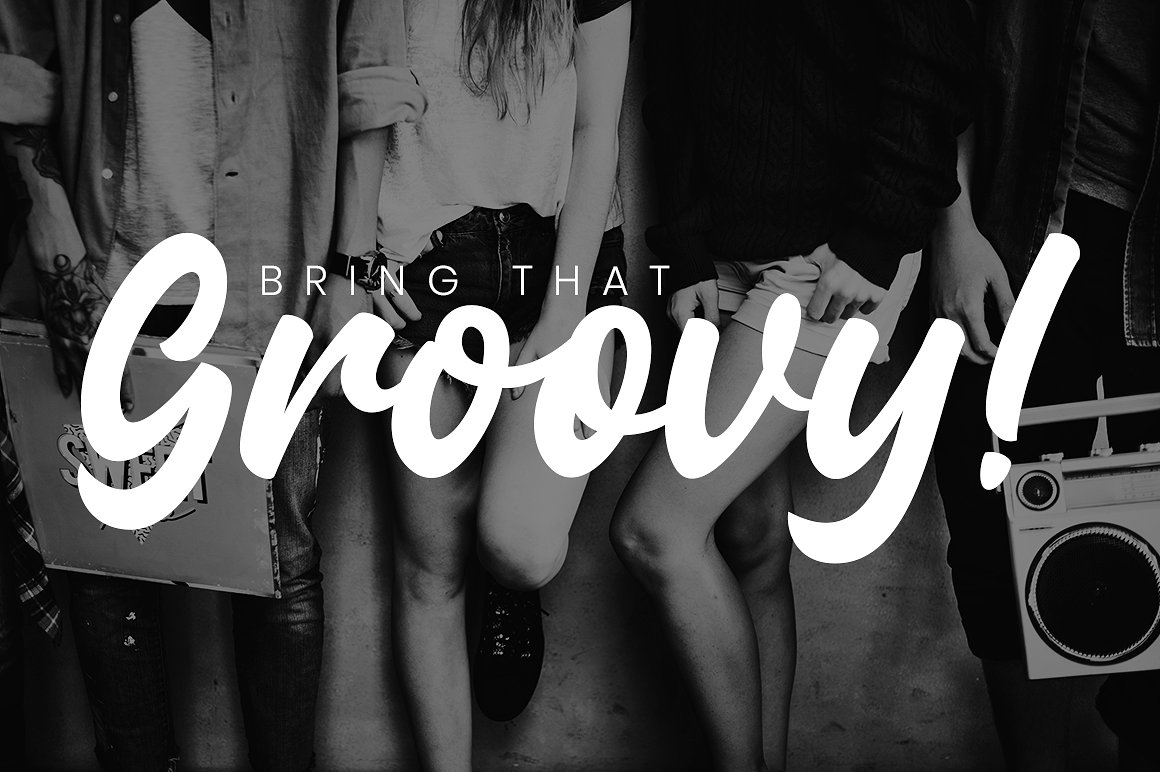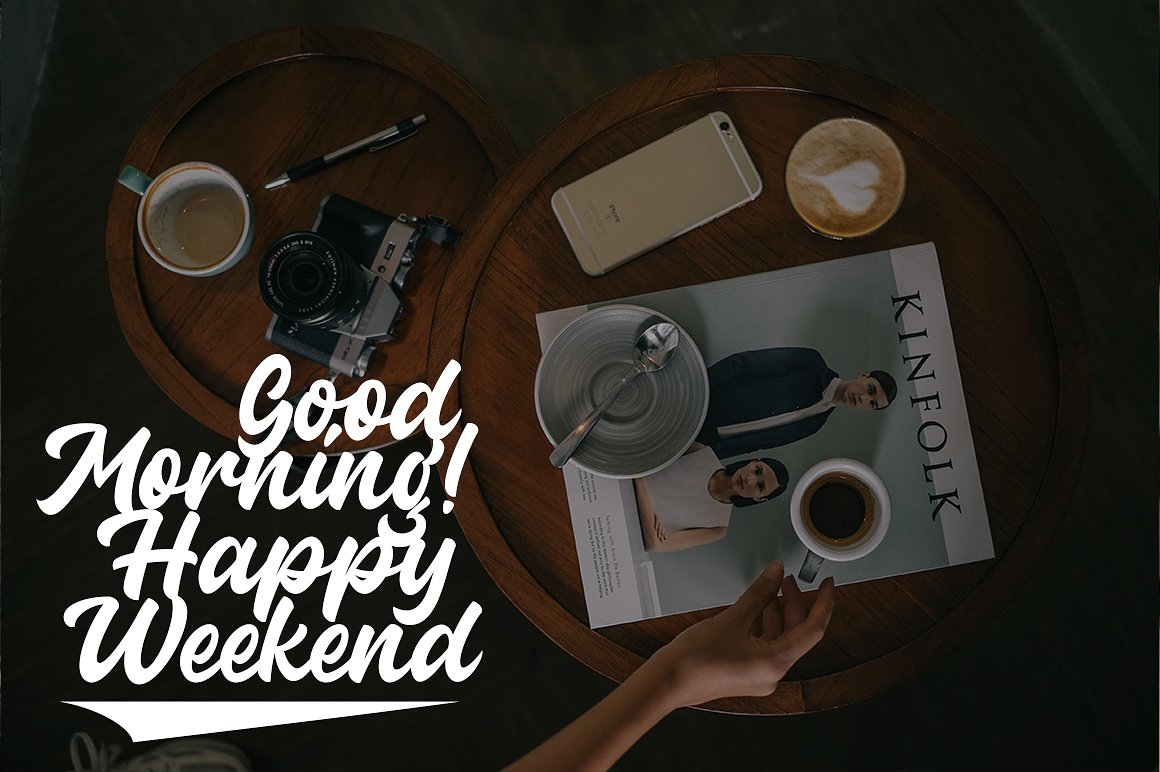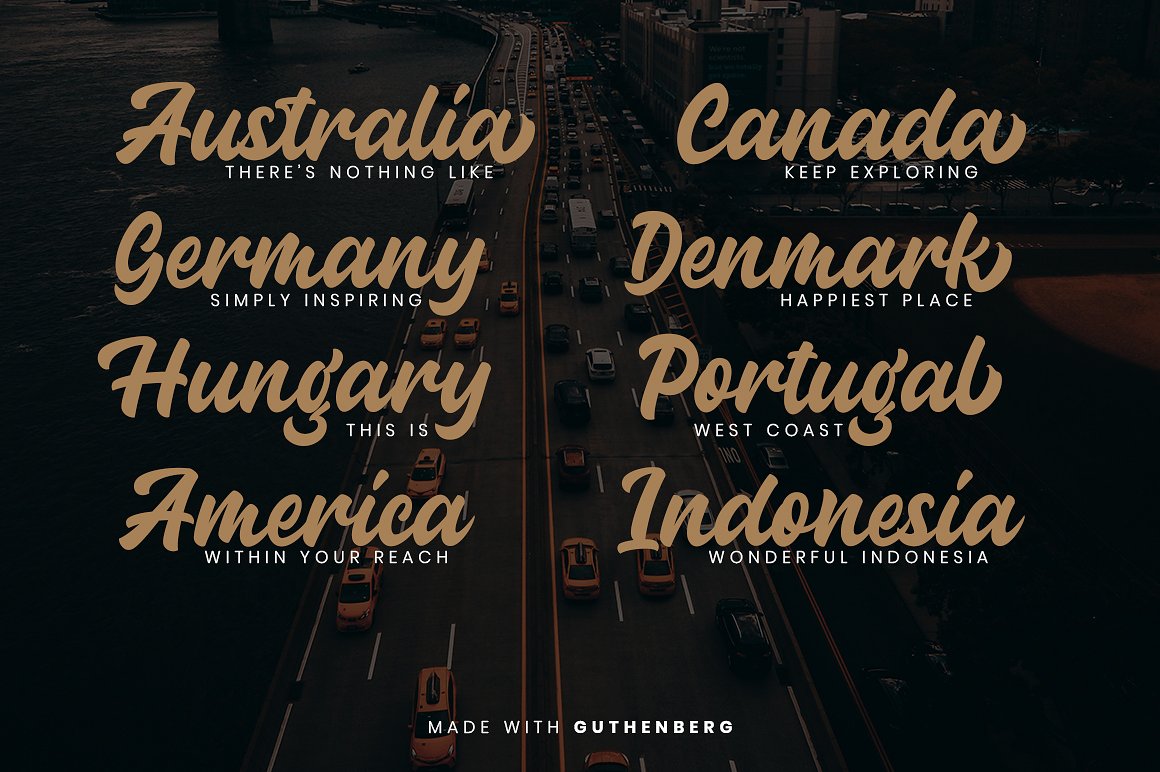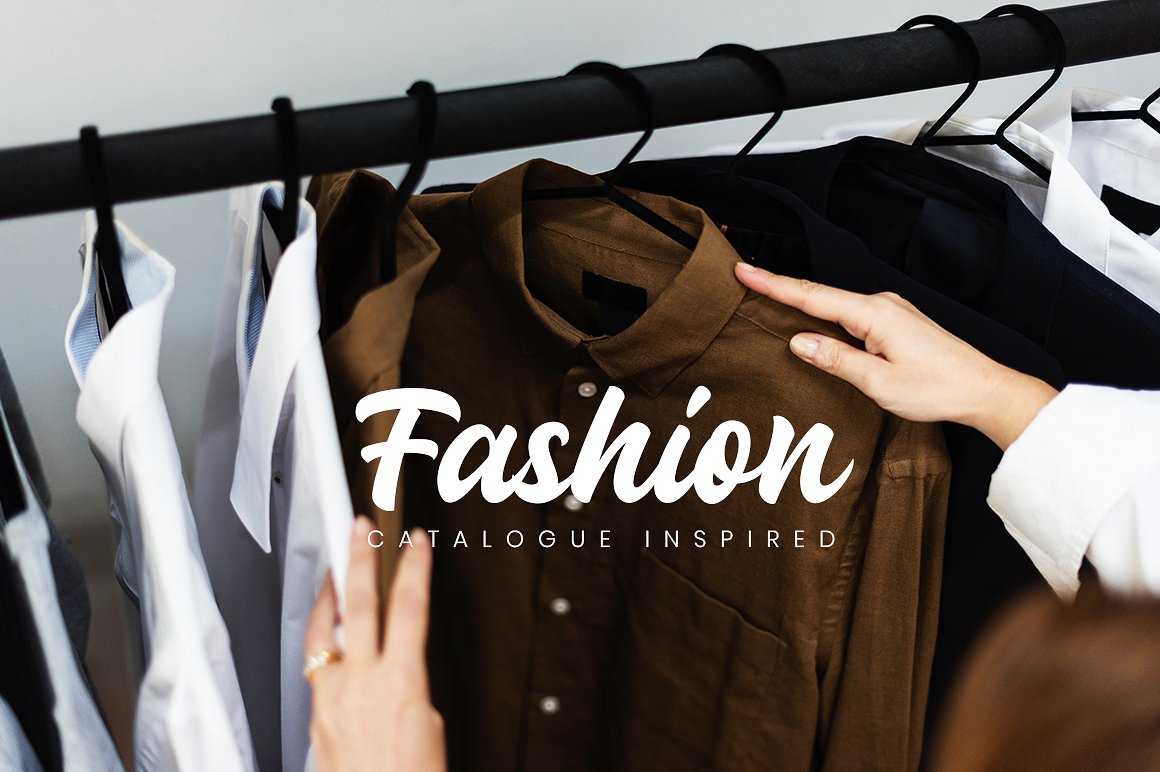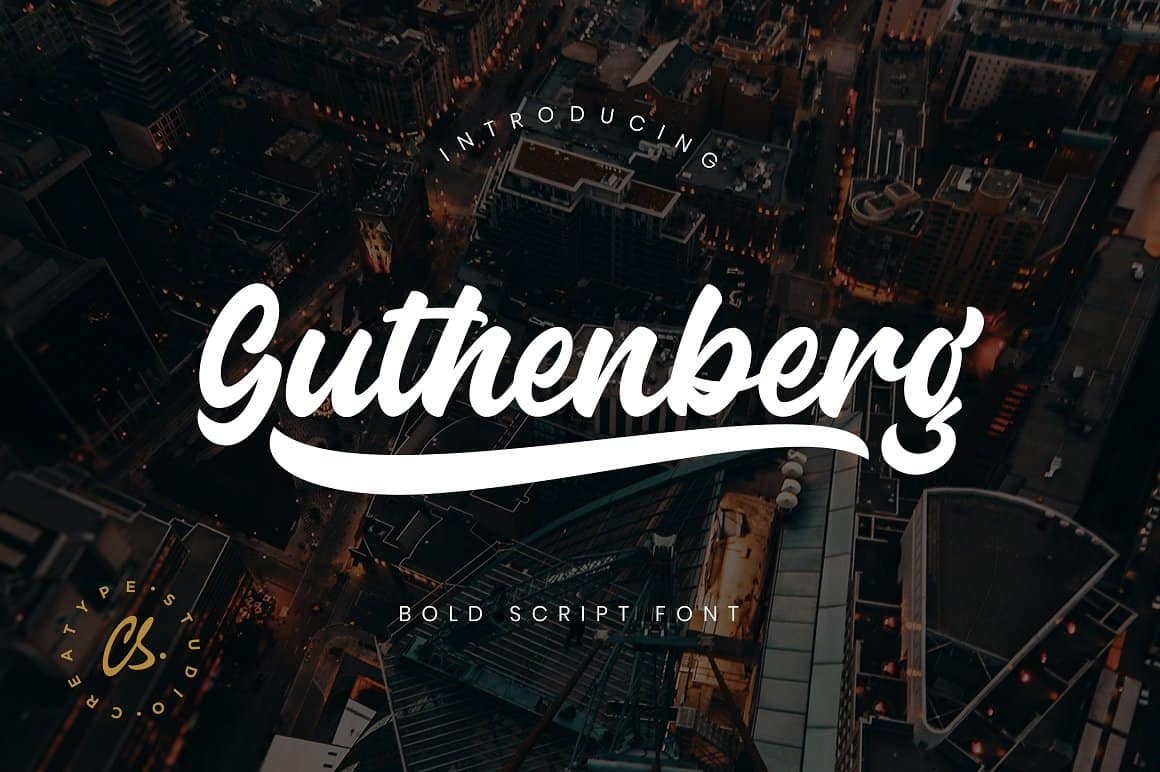
Guthenberg Bold Script Font
Hello everybody! This is a bold script font. The style of handwriting and irregular but still elegant, and you will enjoy to use this font style. Introducing Guthenberg Font. Guthenberg designed and shared by Creatype Studio . Guthenberg Bold Script is a bold calligraphy script with dramatic movement and strong style for your latest project that needs handlettering taste. Guthenberg Bold Script is perfect for branding projects, logo, wedding designs, social media posts, advertisements, product packaging, product designs, label, photography, watermark, invitation, stationery and any projects that need handwriting taste.